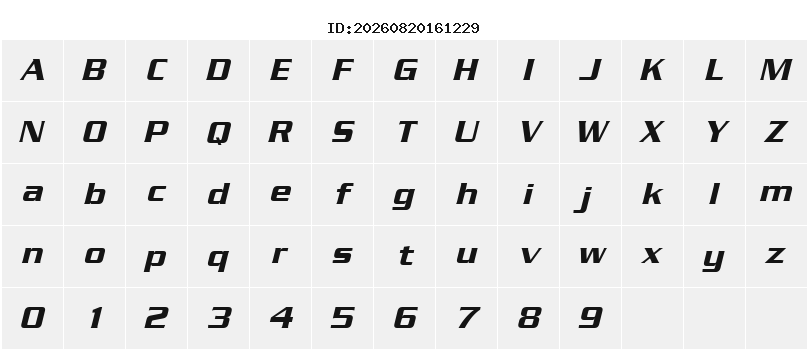
• Font Name: Serpentine ICG
• Font Style: Oblique
About Serpentine ICG.ttf
Serpentine ICG.ttf is a modern, elegant sans-serif font designed for ultimate readability and visual harmony. Perfect for branding, headlines, web design, and print materials.